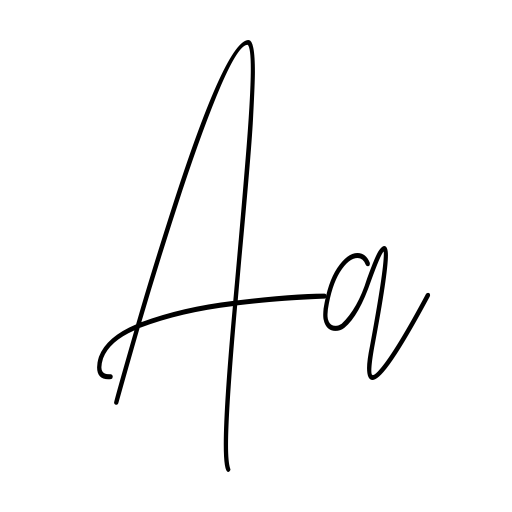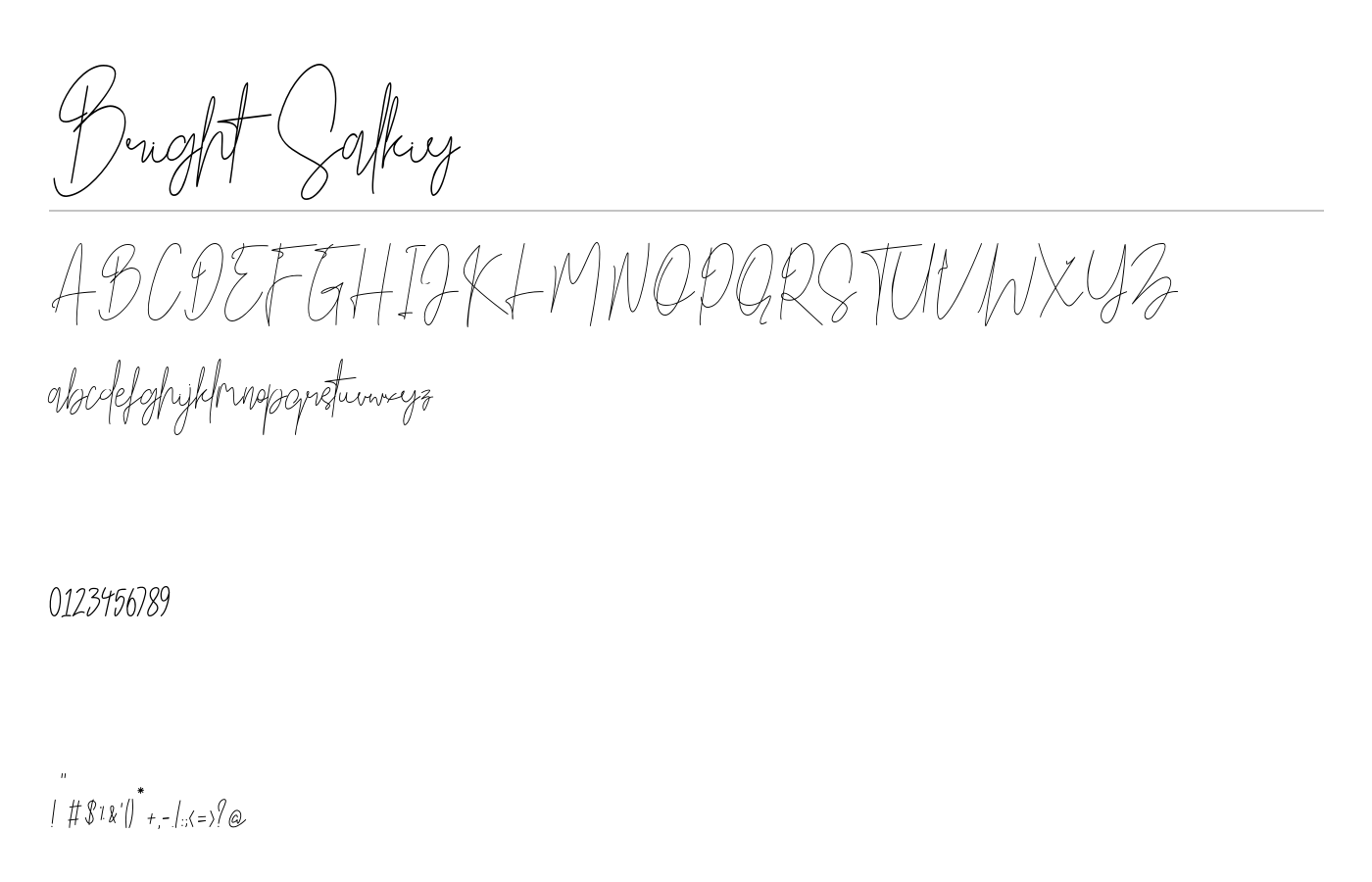
Bright Salkiy is a delicate, handwritten script font with a light, airy feel and tall, narrow letterforms that evoke elegance and a personal touch. Its fine, flowing lines and slightly irregular strokes make it perfect for creative branding, invitations, and stylish headlines where a sophisticated yet approachable look is desired. This font works best in designs that benefit from a refined, modern script with a casual, intimate personality.
Bright Salkiy Font
About Bright Salkiy Font
| Font family | Bright Salkiy Font |
| Designer | Indra Putu Pande & Puspita Sari |